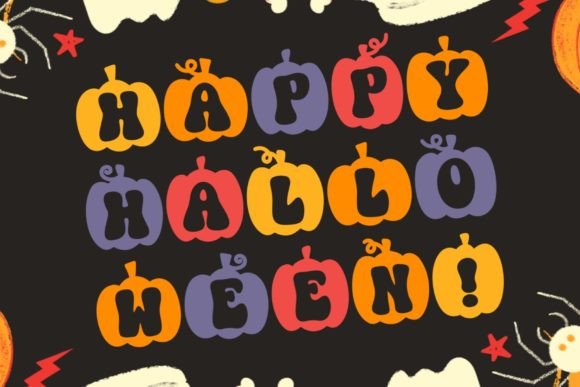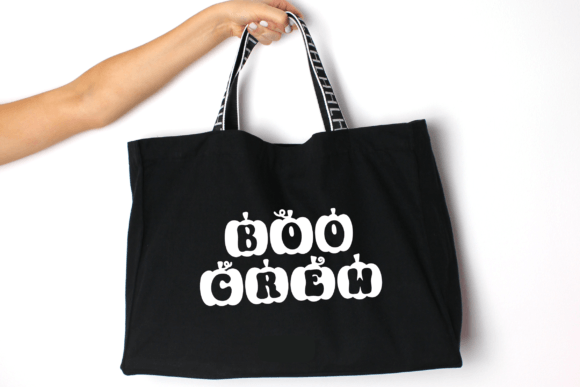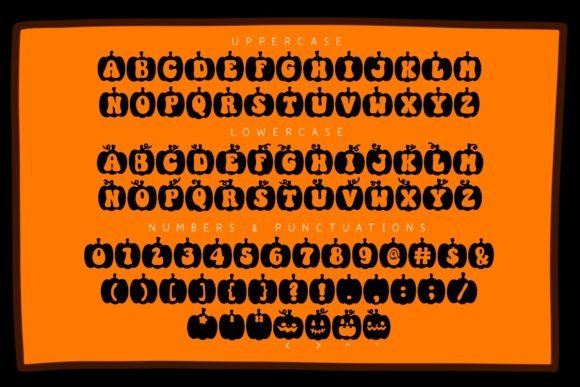
Introduction to Groovy Pumpkin Font
Have you ever been working on a creative project and stumbled upon the perfect font that brings everything together? For designers, finding that one elusive font can be a game-changer. It’s the moment when your entire design comes alive, and you can’t wait to share it with the world.
That’s exactly what the Groovy Pumpkin Font does – it’s the perfect addition to any Halloween-themed project. This high-quality font is a design resource that will elevate your work and make it stand out from the crowd. Whether you’re working on a blog post, logo, or digital planner, the Groovy Pumpkin Font is sure to add a touch of creativity and whimsy.
Key Features of Groovy Pumpkin Font
- Unique and playful design, perfect for a creative project that requires a high-quality font.
- Designed to evoke a sense of fun and playfulness, making it perfect for Halloween-themed designs, party invitations, and more.
Honest Review: Groovy Pumpkin Font
I recently stumbled upon the Groovy Pumpkin Font, and I must say it’s been a delightful addition to my design library. As a designer, I’m always on the lookout for unique and high-quality design resources to elevate my creative projects.
The Groovy Pumpkin Font is a perfect example of this, with its playful and whimsical feel. The font is free to download, which is a huge bonus for designers who are on a tight budget.
Here are some things that work well with this font:
- Its transparent background makes it easy to use in various design contexts.
- The font’s versatility allows it to be used in a wide range of creative projects, from invitations to social media graphics.
- The design is simple yet effective, making it a great choice for designers who want to add a touch of personality to their work.
One limitation I’ve noticed is that the font may not be suitable for formal or professional designs, as it has a more casual and playful tone.
Overall, I’m really impressed with the Groovy Pumpkin Font, and I think it’s a great addition to any designer’s library. It’s a high-quality design resource that’s perfect for creative projects where you want to add a bit of whimsy and fun.
Tips for Getting the Most Out of Groovy Pumpkin Font
When using Groovy Pumpkin Font, consider the following tips to get the most out of it: use it in conjunction with a transparent background for a unique design effect, experiment with different font sizes and styles to add visual interest, and use it in a design resource that showcases its high-quality features.
The Groovy Pumpkin Font is a versatile design resource that can be used in a variety of creative projects, including invitations, posters, and social media graphics. Its high-quality features and transparent background make it an ideal choice for designers looking to add a unique touch to their work.